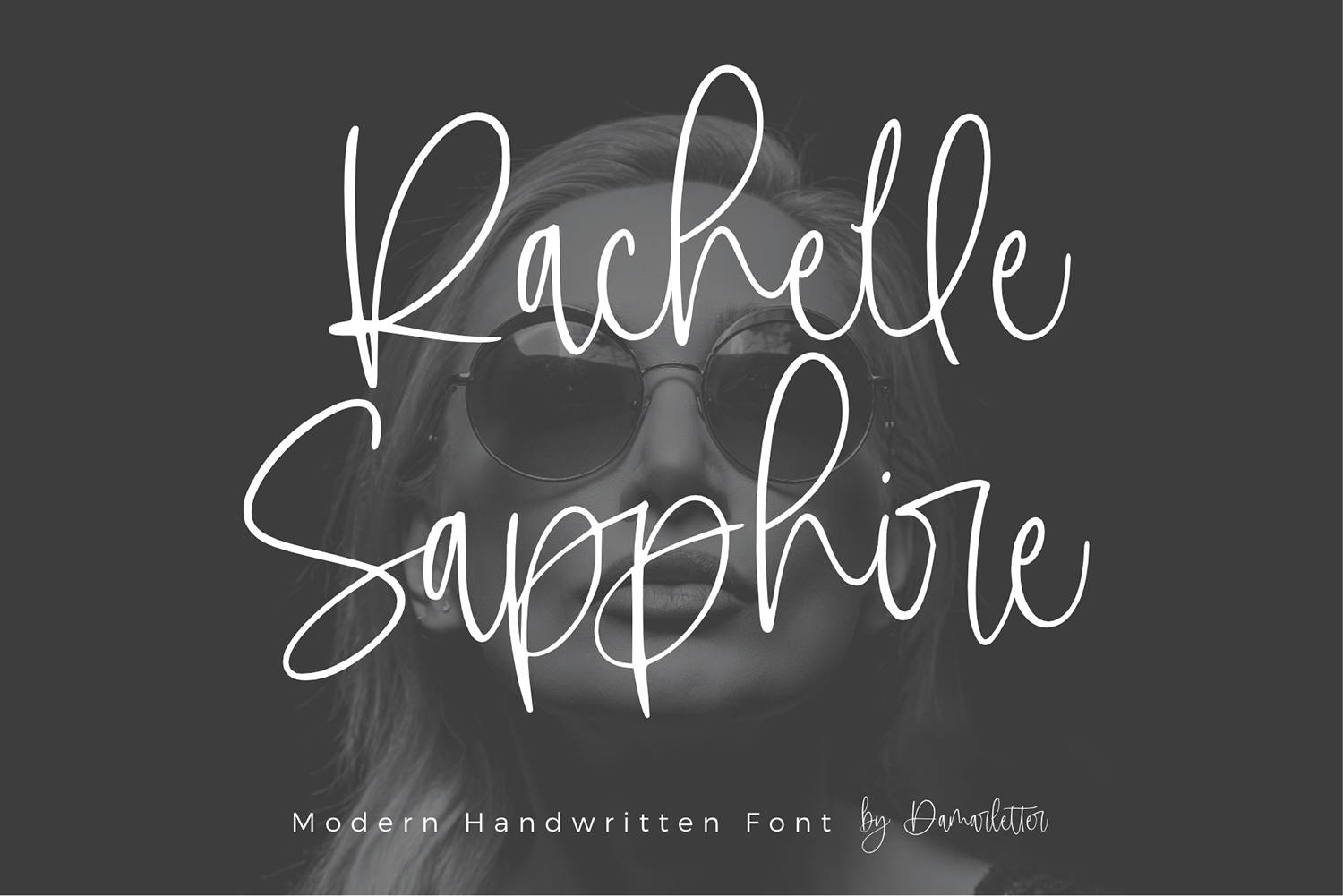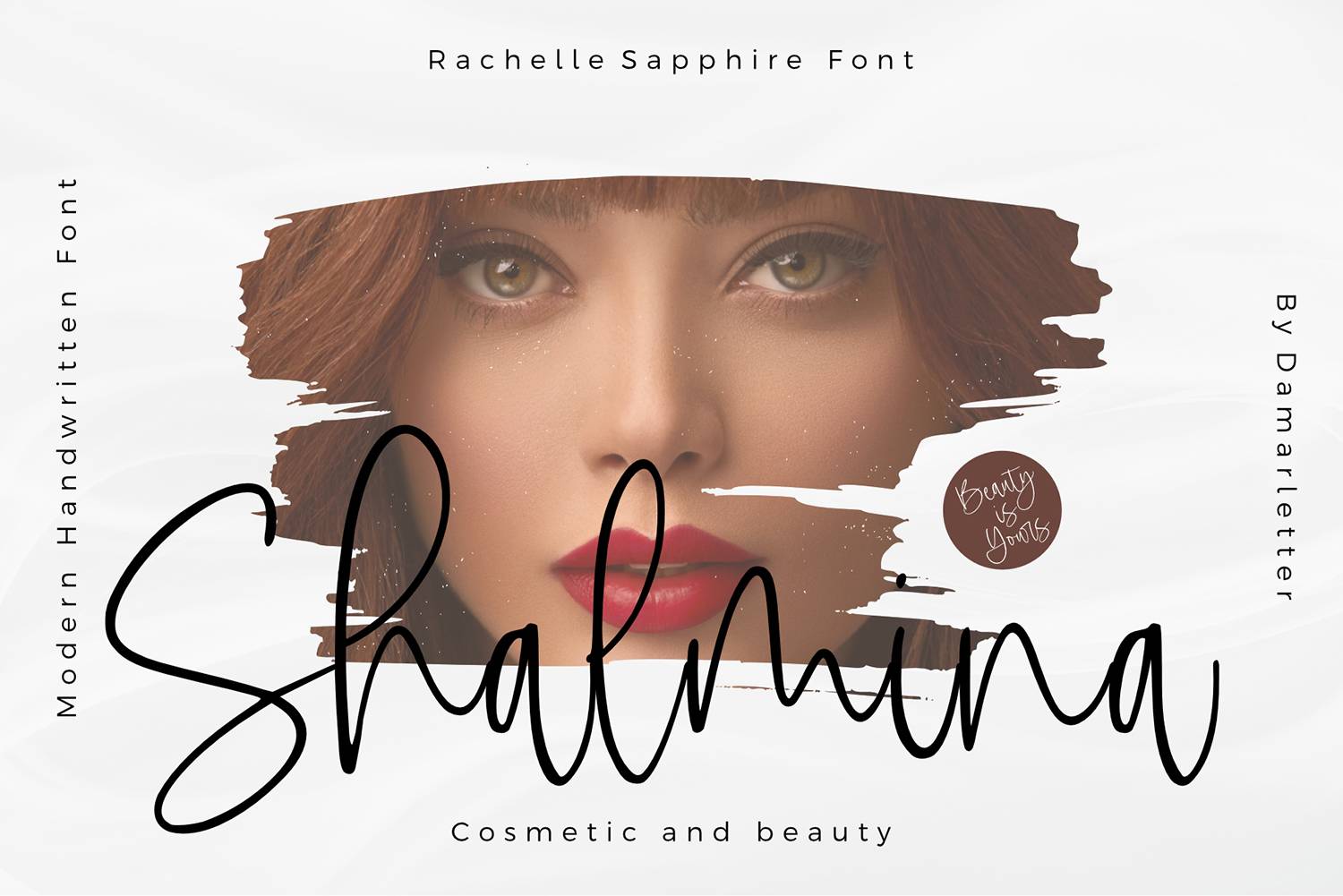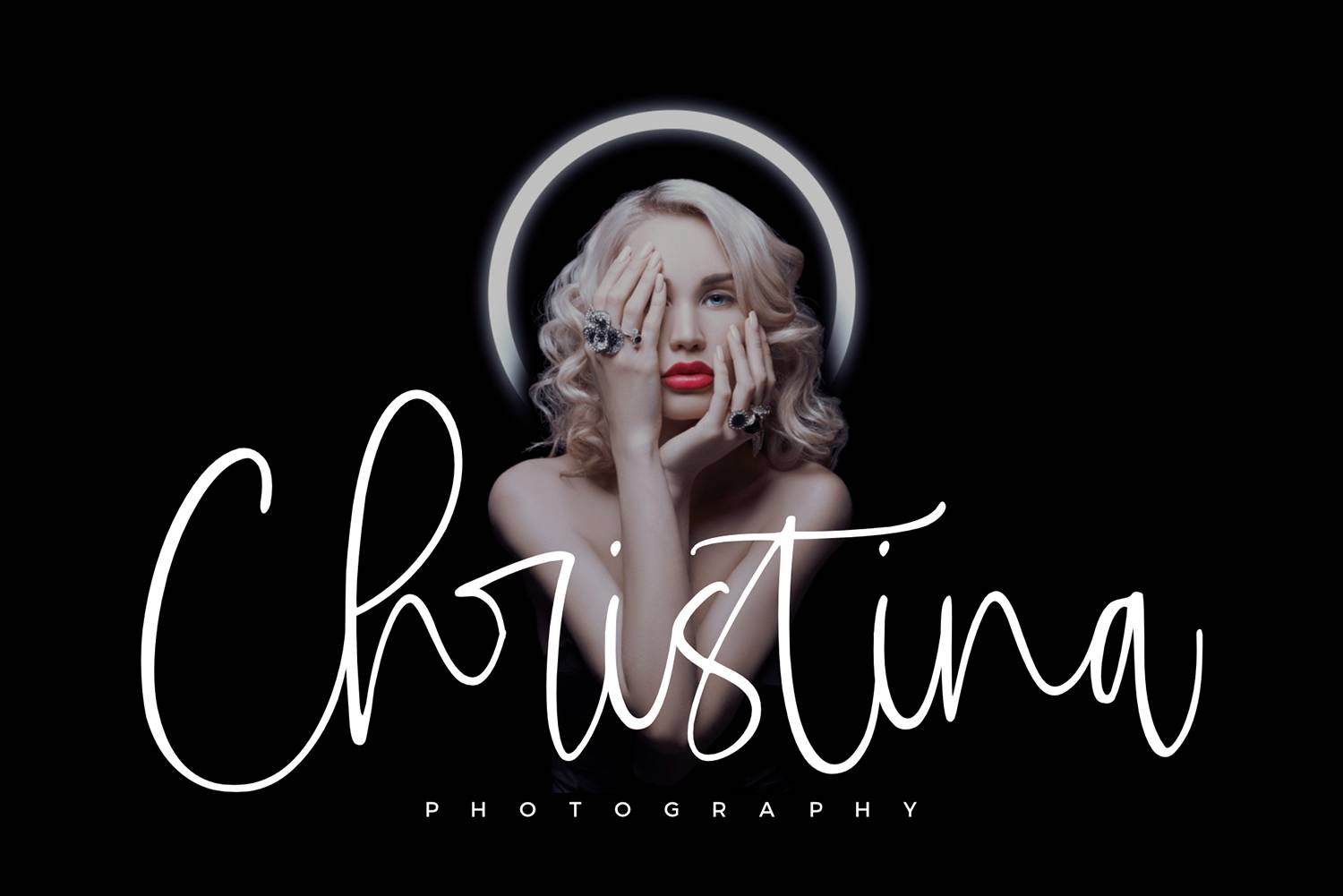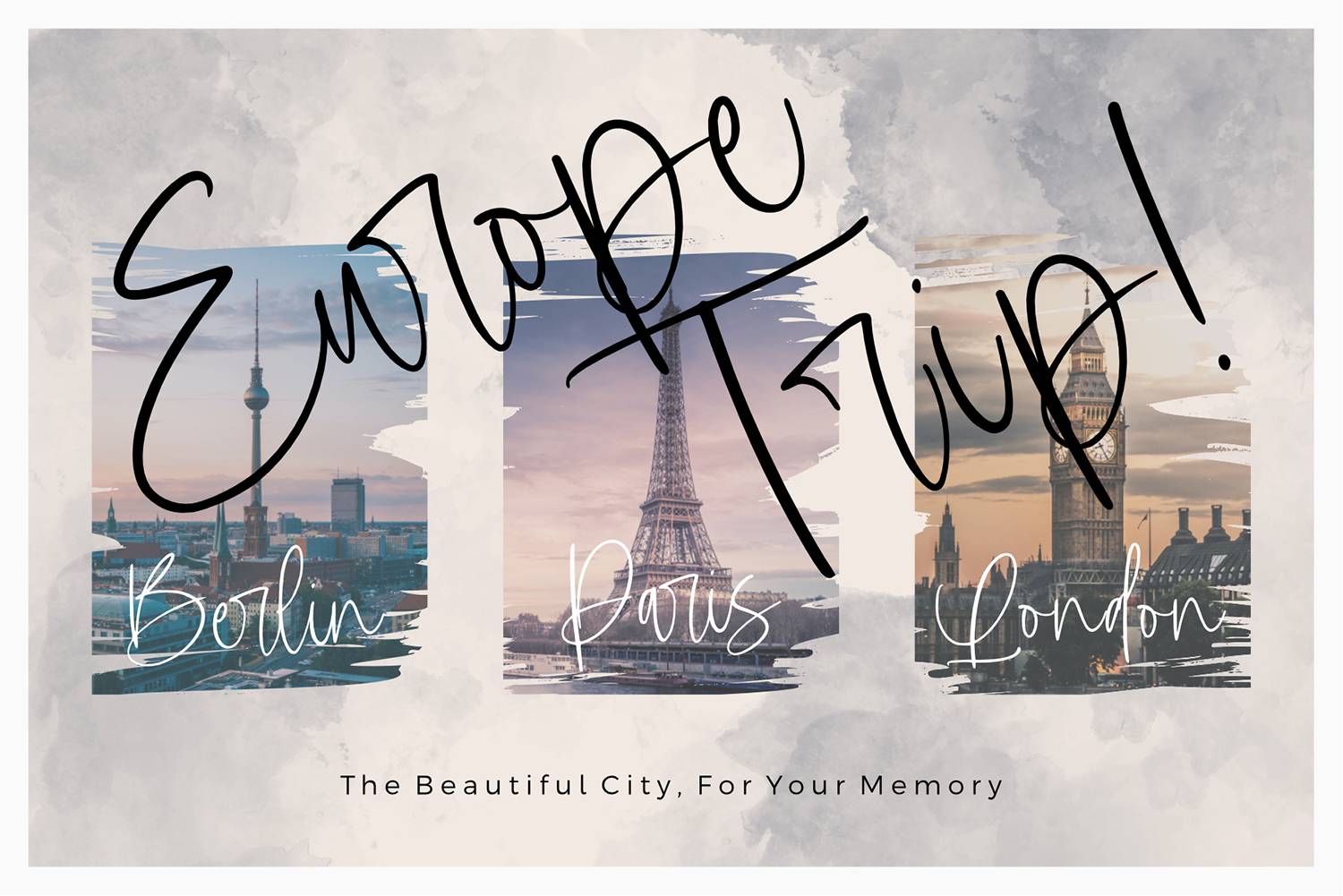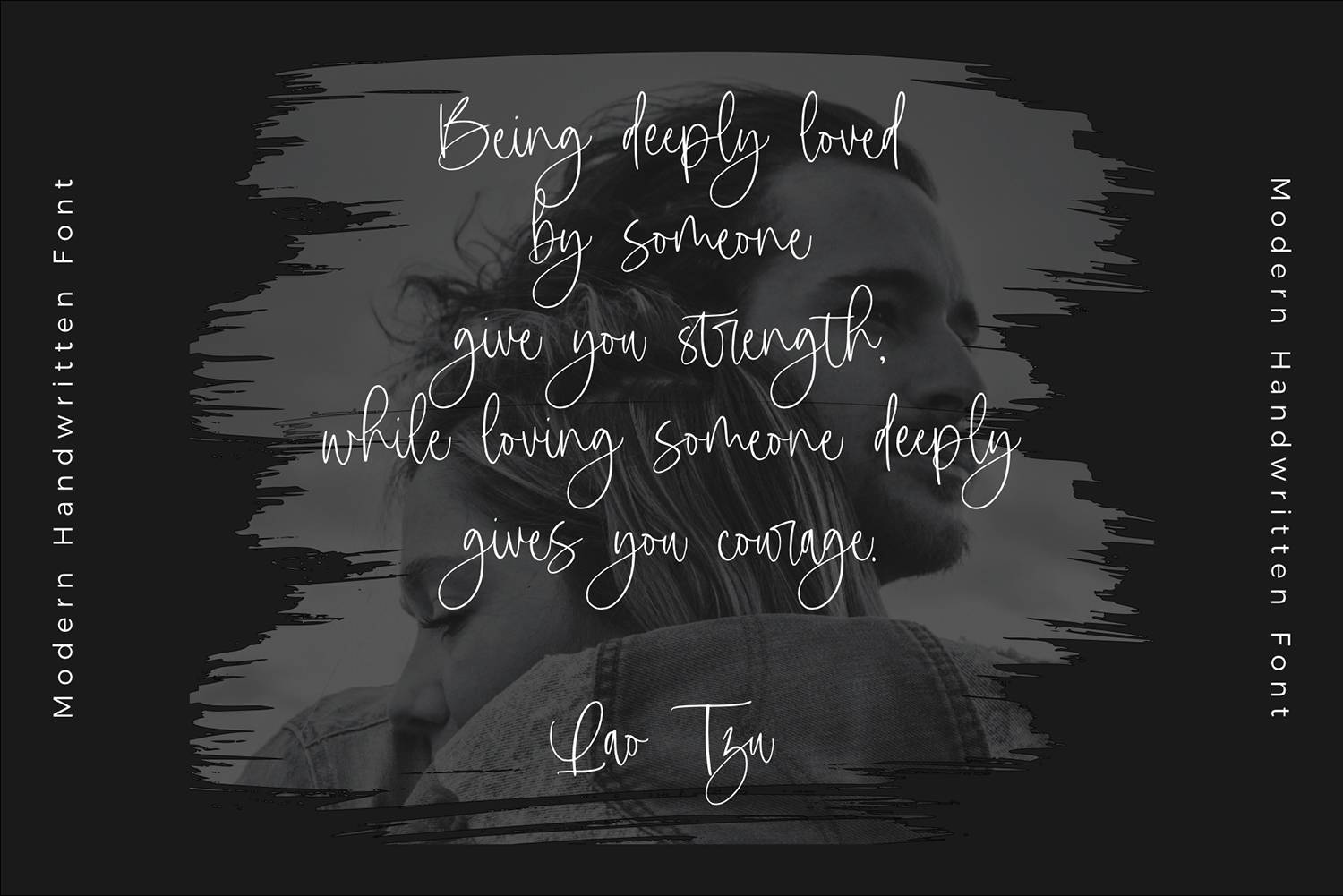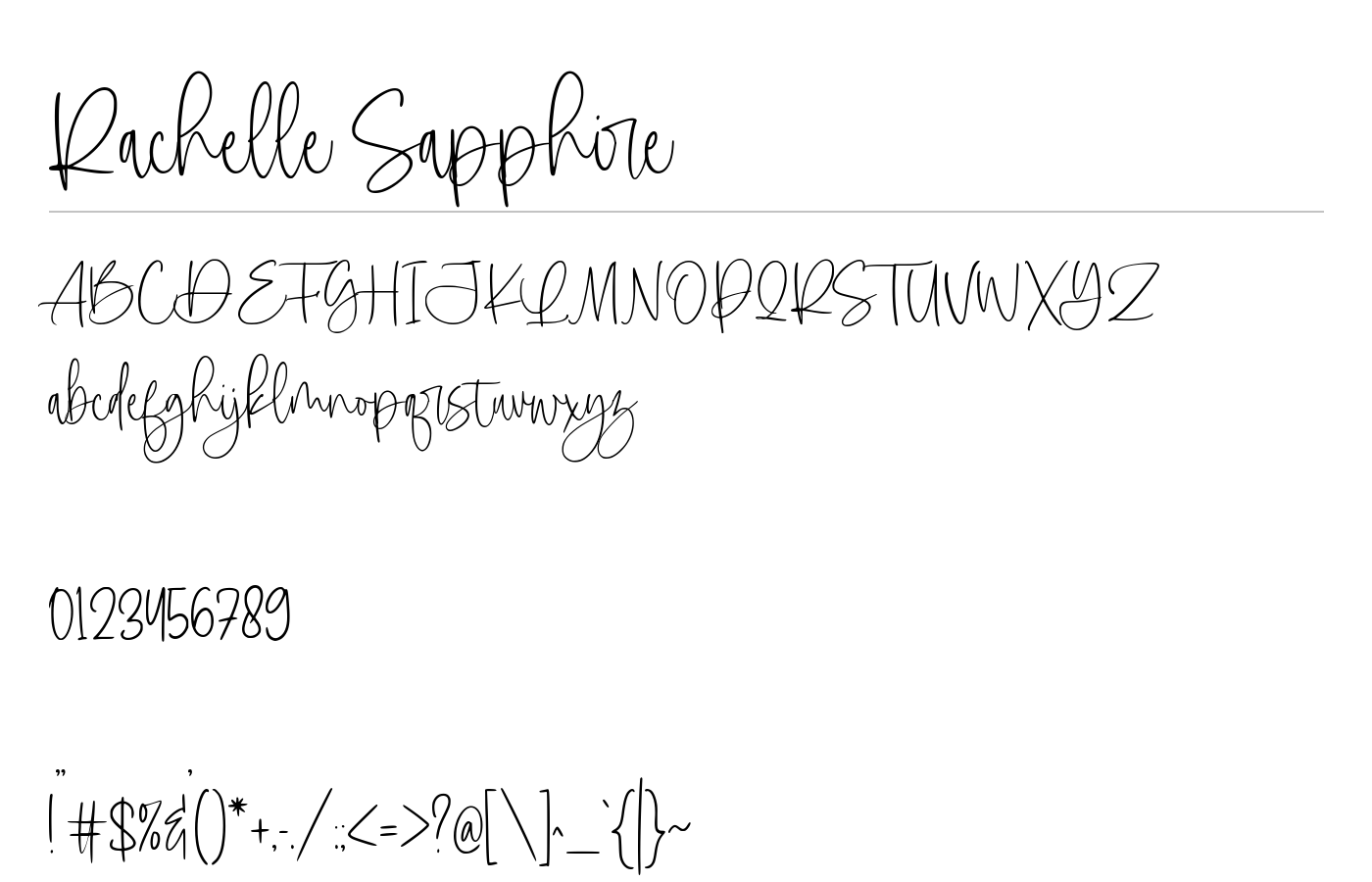
Rachelle Sapphire is a delicate, handwritten script font characterized by its tall, slender letterforms and playful, flowing strokes. Its light weight and airy spacing give it a casual yet elegant feel, making it ideal for creative branding, invitations, and feminine design projects where a personal and stylish touch is desired. This font shines in applications that benefit from a charming, handcrafted aesthetic without sacrificing readability.
Rachelle Sapphire Font
About Rachelle Sapphire Font